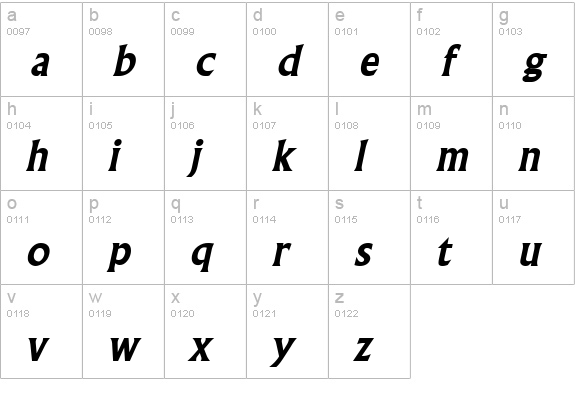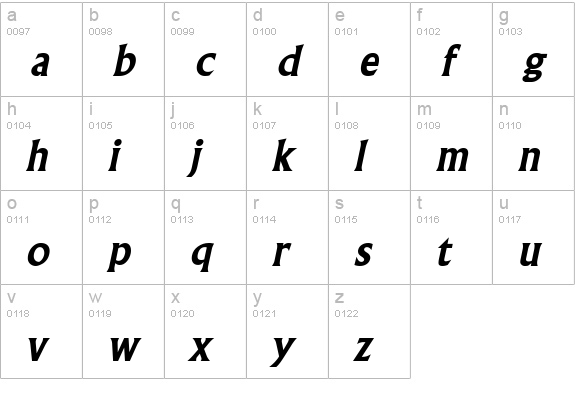
Flair BoldItalic Font Details
Flair BoldItalic font is a striking and elegant typeface that exudes sophistication and style. Its unique combination of boldness and italic styling makes it perfect for creating eye-catching designs that demand attention. The sleek curves and strong lines of Flair BoldItalic font give it a modern and dynamic look that is sure to make your projects stand out. What sets Flair BoldItalic font apart is that it is not only visually stunning, but also completely free to download. You can easily access this versatile and stylish font at FontsMarket.com, where it is available for download at no cost. Whether you are designing a poster, logo, website, or any other creative project, Flair BoldItalic font is the perfect choice to add a touch of flair and sophistication. Elevate your designs with this free and stylish font today!